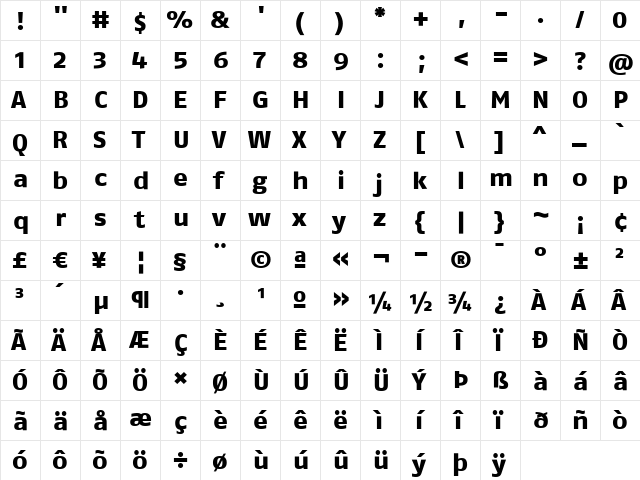
FagoExLf Extrabold
Design Context for FagoExLf Typeface
FagoExLf takes a measured approach to typography — its balanced proportions and neutral character make it a reliable workhorse for both digital and print work. Its bold stroke weight gives it real presence on the page.